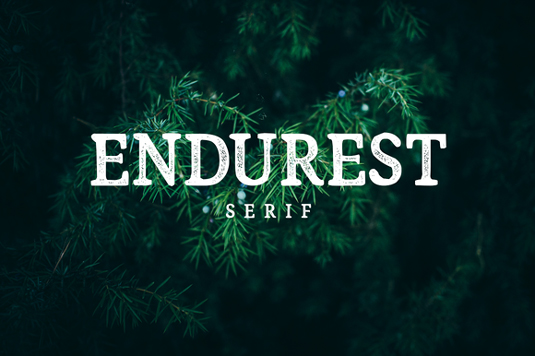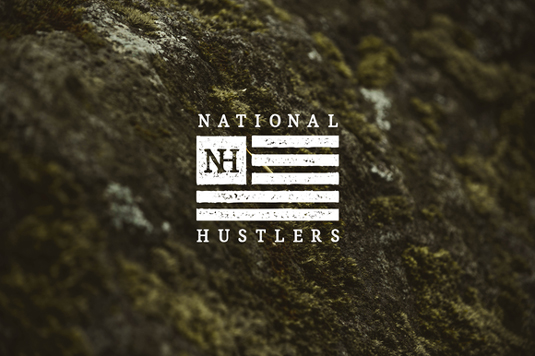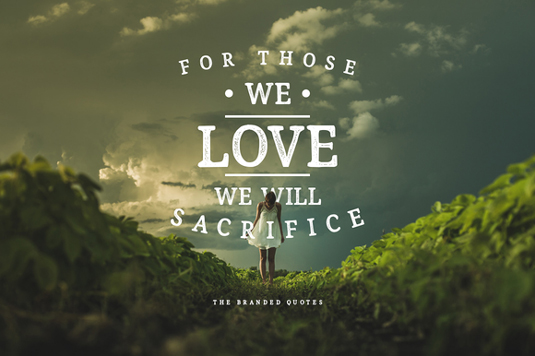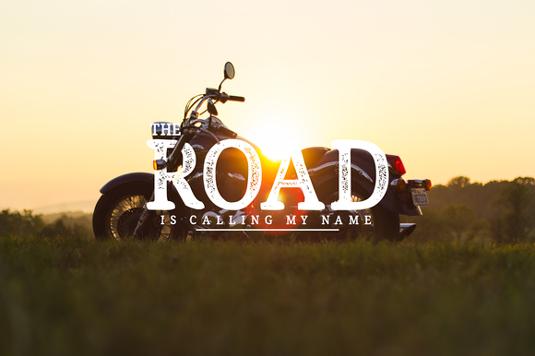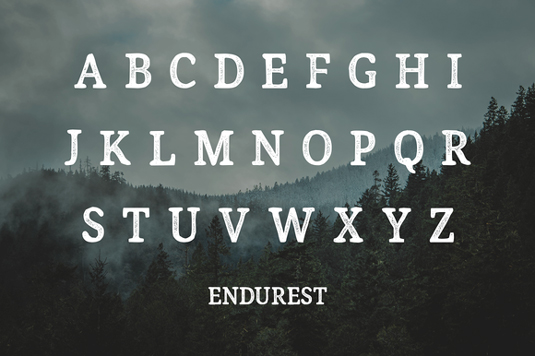
Font of the day: Endurest
Endurest from The Branded Quotes
Built to withstand the challenge of trends and time, the team at The Branded Quotes Design Inc developed serif typeface Endurest. Inspired from the graphing technique of the late Sir Raymond DaBoll, Endurest is a modern vintage design, suited to a variety of print and web projects.